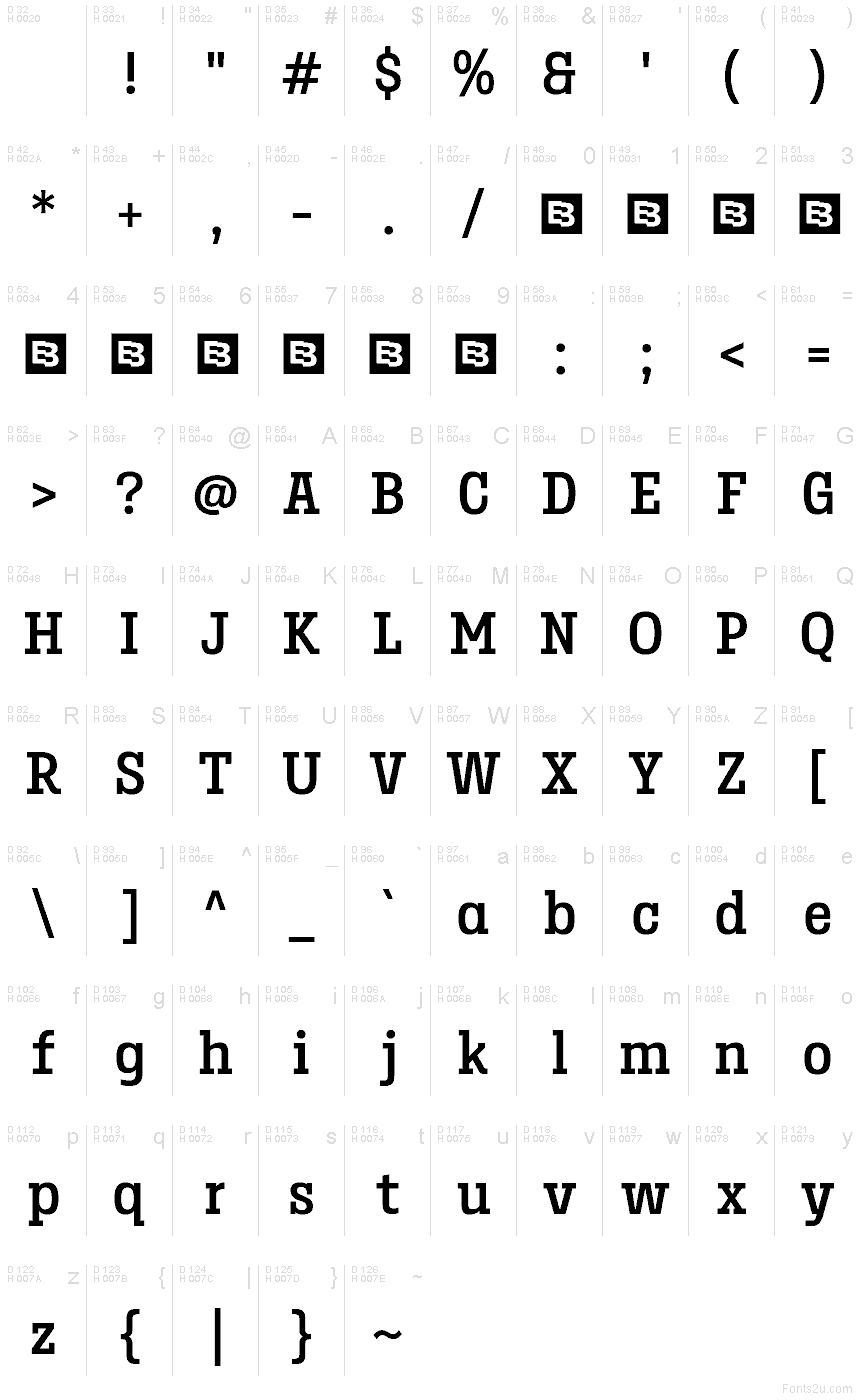
Birdwood Trial Semi Bold
Birdwood Semi Bold font is a free serif font designed by Eko Bimantara. Using authoritative linework and classic serifs, this typeface creates the professional and traditional vibe of important books like dictionaries and encyclopedias from the 20th century. Despite all that authority, Birdwood remains easy to read due to its clean letters.
Naturally well-suited for encyclopedias, dictionaries, instruction manuels, or government publications, Birdwood works in any case where standardization is key. Use it freely for newspapers and magazines generally meant to inform and describe more than entertain or provoke. Its style can also be useful for law-related websites or publications!